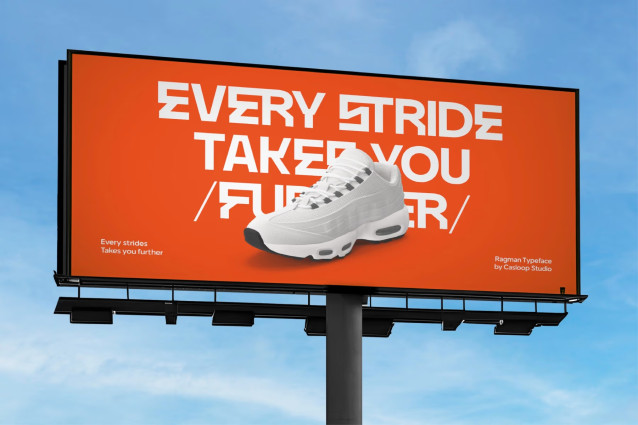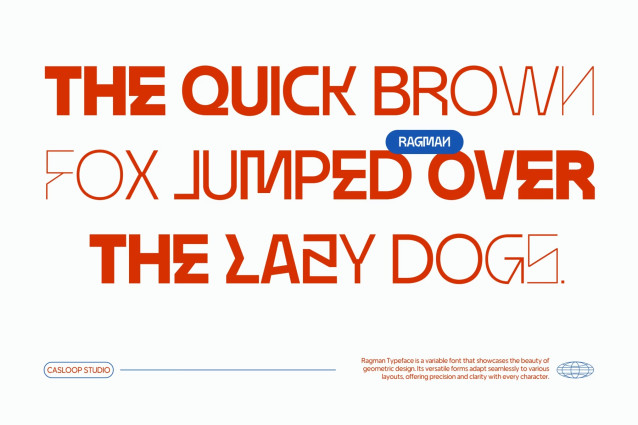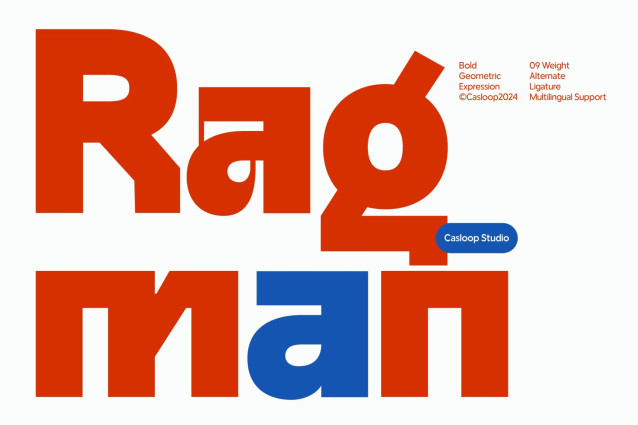
Introducing Ragman – The Ultimate Modern Typeface Elevate your digital and print projects with Ragman, the quintessential modern grotesque font that merges technology and style. This premium typeface stands out with its unique blend of geometric precision and quirky character, offering a contemporary touch for any professional or corporate setting.
Ragman’s superiority lies in its versatile nature. Designed to be impactful yet expressive, this sleek sans-serif typeface features a range of weights from Thin to Black, and comes in both a comprehensive Font Family and a dynamic Variable font. Its rigid, boxy forms are perfect for making your branding, logo, website, or packaging truly memorable.
Whether you’re working on digital media visuals, text animations, or motion graphics, Ragman provides a fresh, youthful, and now-day aesthetic. Its geometric lines and quirky details ensure that your content stands out with originality and timeless appeal.